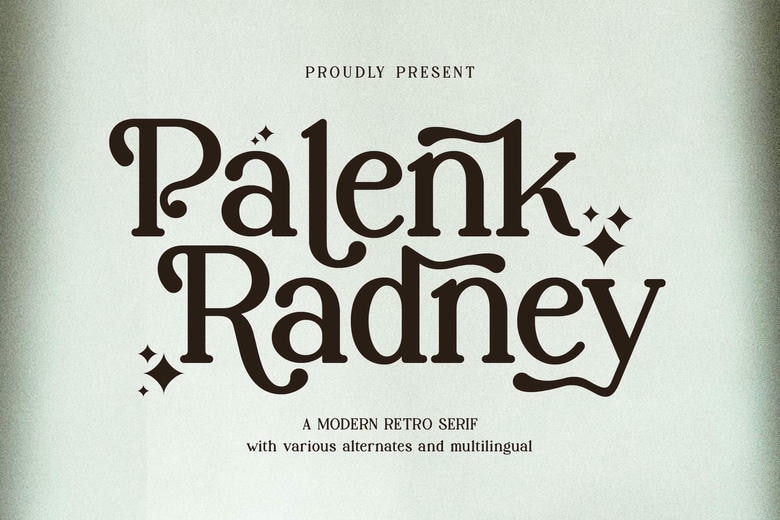
Palenk Radney Font
Palenk Radney is a modern retro serif font that works well for many projects. You can use it for logos, branding, homeware designs, product packaging, mugs, quotes, posters, shopping bags, T-shirts, book covers, name cards, invitations, greeting cards, labels, photography, watermarks, special events, and any other project that needs a modern retro touch.
Palenk Radney Serif Font